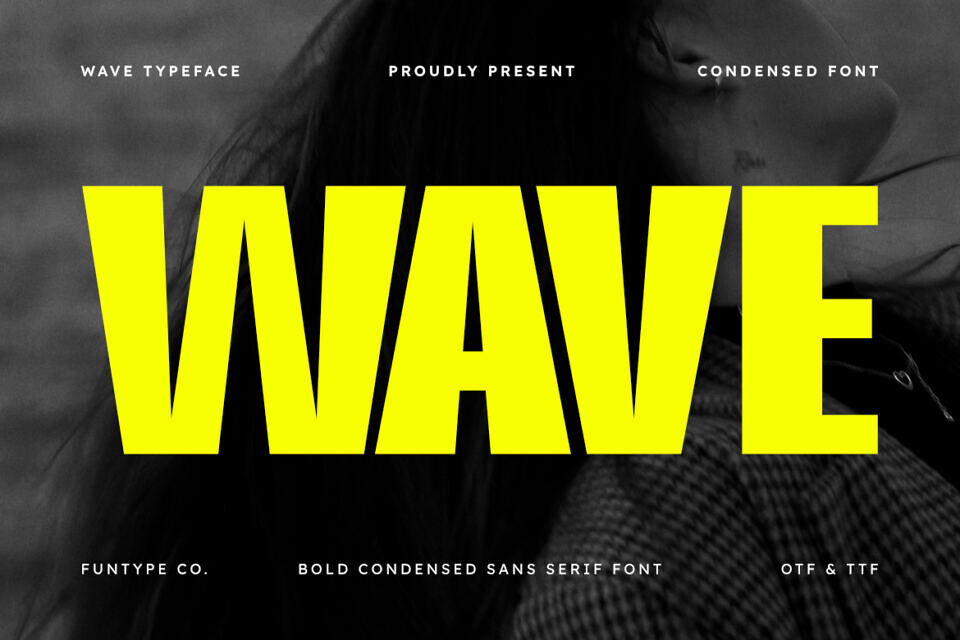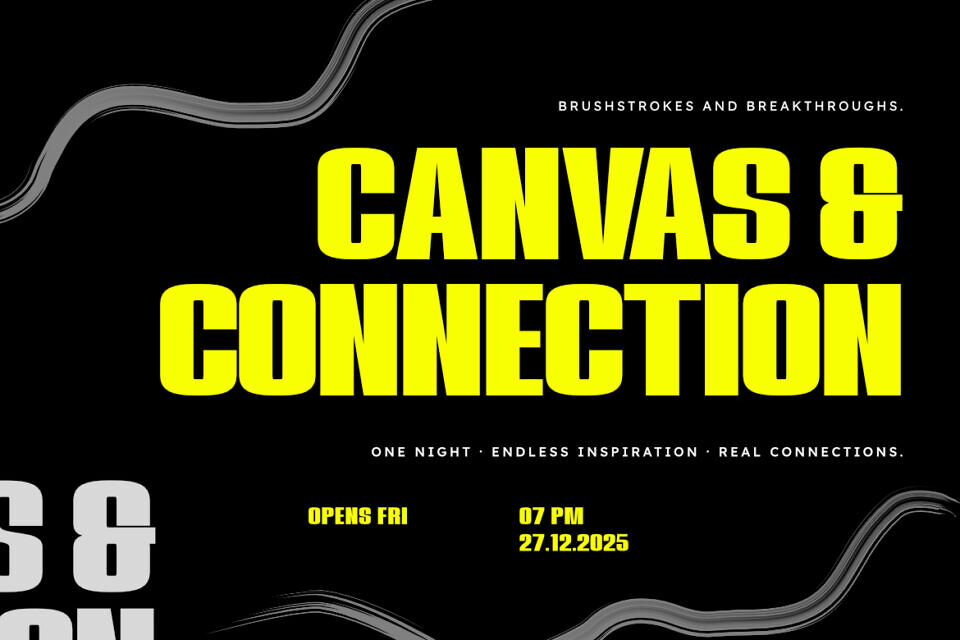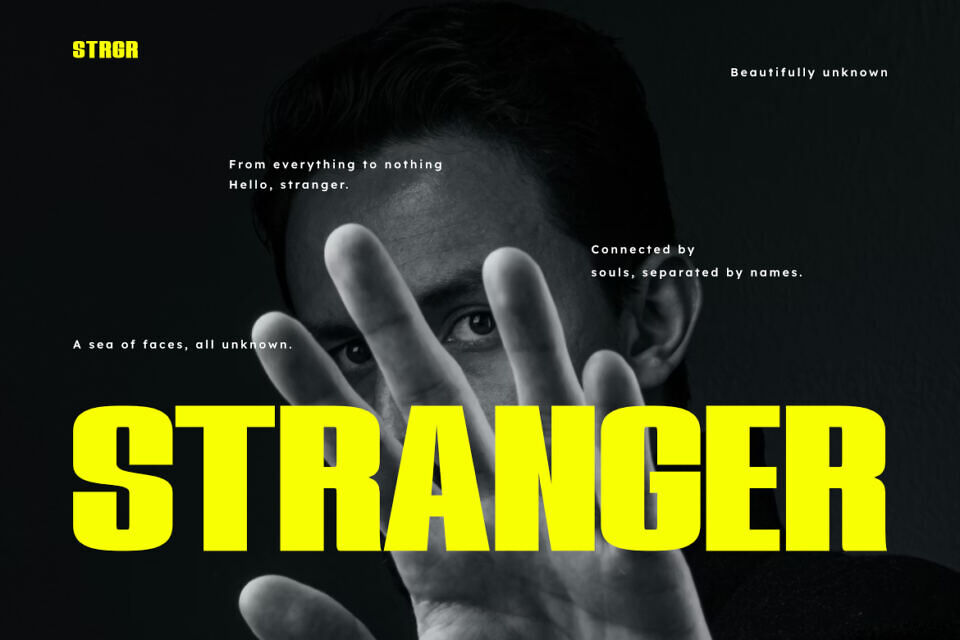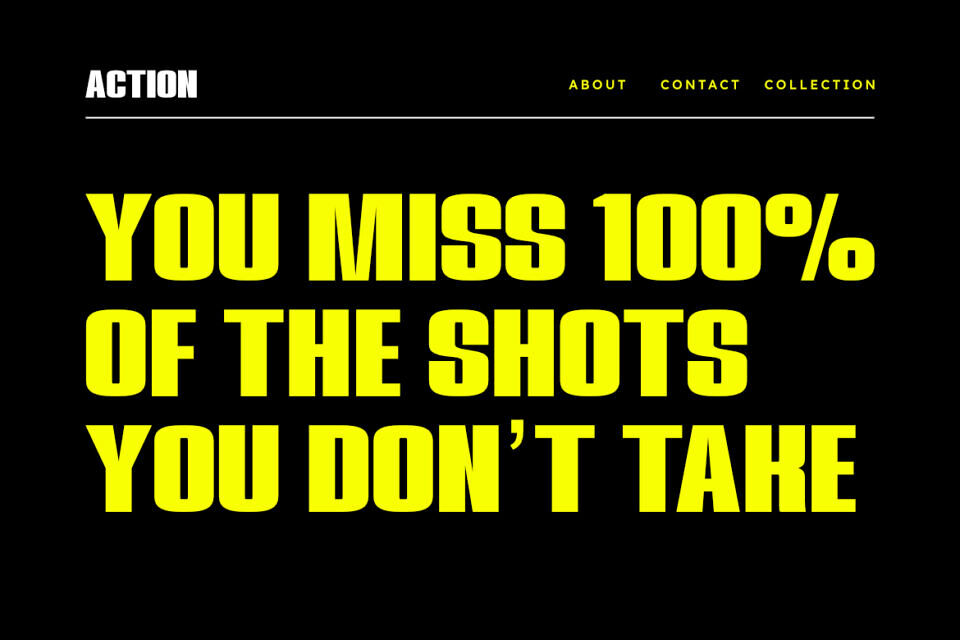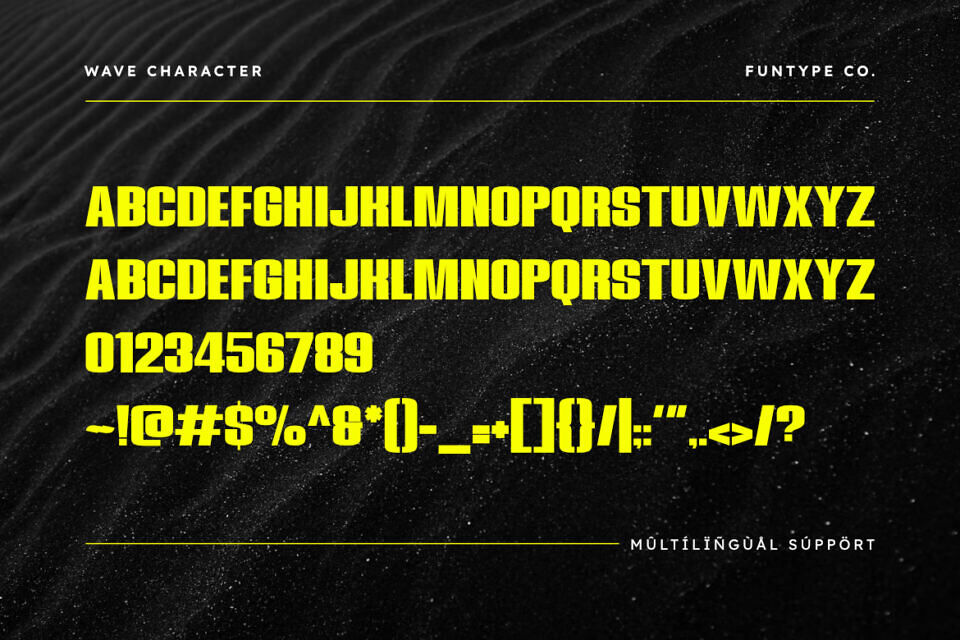
Wave is a high-energy, impactful, modern, bold, condensed sans serif font designed to create a powerful visual flow in any creative layout. Its solid, heavyweight structure and clean vertical lines make it an exceptional choice for dominant headlines, professional branding, athletic apparel, and dynamic poster designs.
This versatile typeface ensures your message is delivered with maximum strength and clarity, providing a sleek yet authoritative look that is perfect for contemporary projects across both digital and print media.